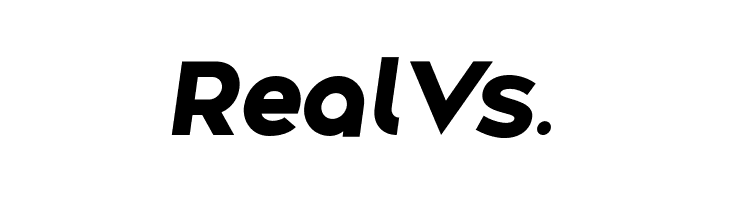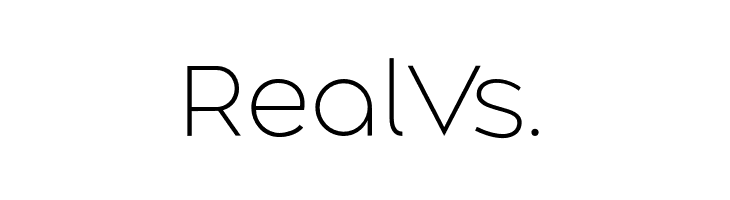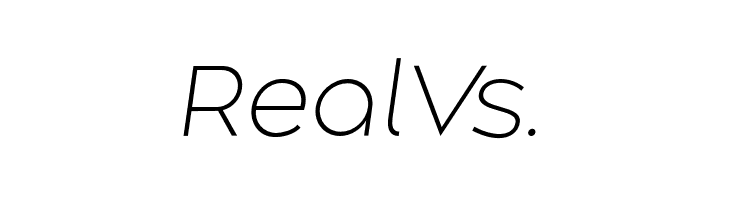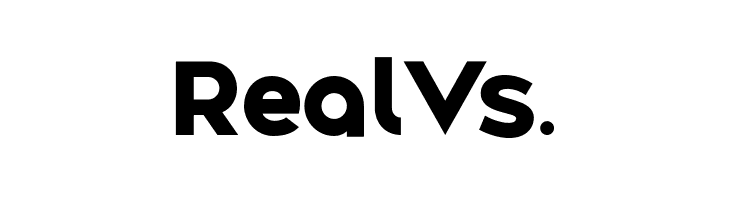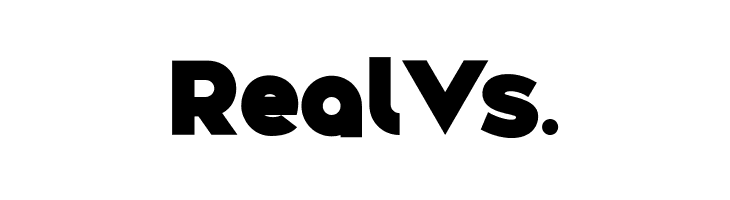
• Along Sans s2 ExtraBold
A bold, geometric sans-serif typeface with a modern and assertive style.
• Along Sans s2 ExtraBoldItalic
A bold, italicized sans-serif font with a modern geometric style.
• Along Sans s2 ExtraLight
A modern, geometric sans-serif font with an extra light weight.
• Along Sans s2 ExtraLightItalic
A modern, extra light italic sans-serif font with clean lines and a refined aesthetic.
• Along Sans s2 Heavy
A bold, modern sans-serif font with geometric shapes and strong lines.
• Along Sans s2 HeavyItalic
• Along Sans s2 Light
A modern, light sans-serif font with clean lines and balanced proportions.
• Along Sans s2 LightItalic
A modern, light, italic sans-serif font with clean lines and smooth curves.
• Along Sans s2 Medium
• Along Sans s2 MediumItalic
A modern, italic sans-serif font with a sleek and dynamic style.
• Along Sans s2 Regular
A modern, geometric sans-serif font with uniform strokes and clear legibility.
• Along Sans s2 RegularItalic
A modern, italic sans-serif font with clean lines and balanced proportions.
• Along Sans s2 SemiBold
A modern, semi-bold sans-serif font with clean lines and balanced proportions.
• Along Sans s2 SemiBoldItalic
A modern, semi-bold italic typeface with clean lines and versatile design.
• Along Sans s2 Thin
A sleek, minimalist font with thin, uniform lines and geometric shapes.
• Along Sans s2 ThinItalic
A thin, italicized sans-serif font with a modern and elegant style.